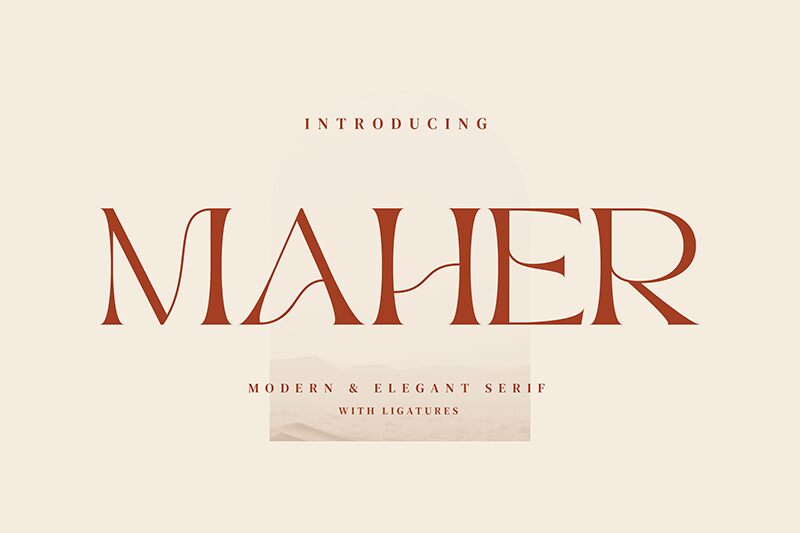
Maher
Maher font by Biham Santoso is a transitional serif characterized by its elegant curves, modern sophistication, and refined aesthetic. The typeface blends subtle contrast with a sleek appearance, making it suitable for creating captivating designs that express professional-looking elegance.